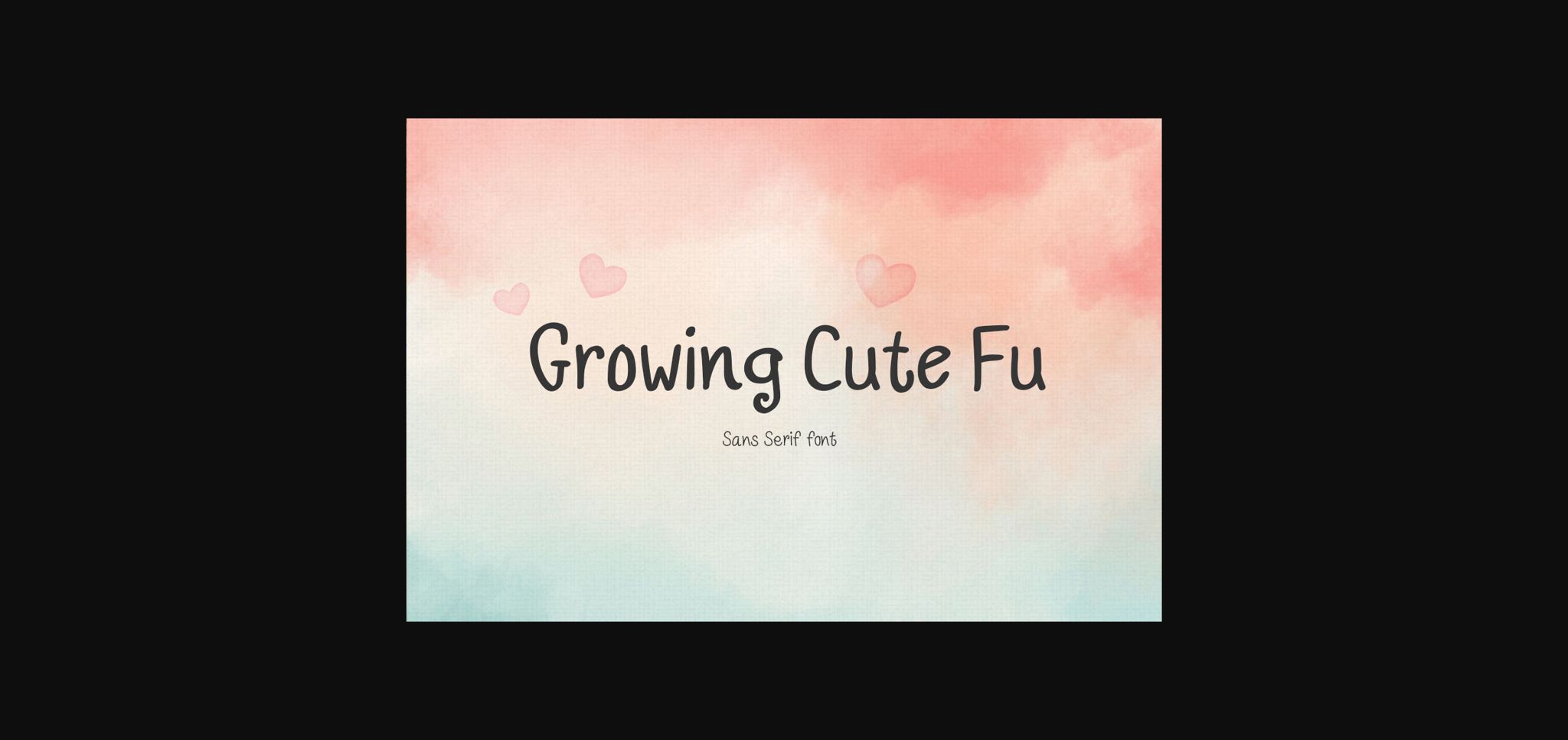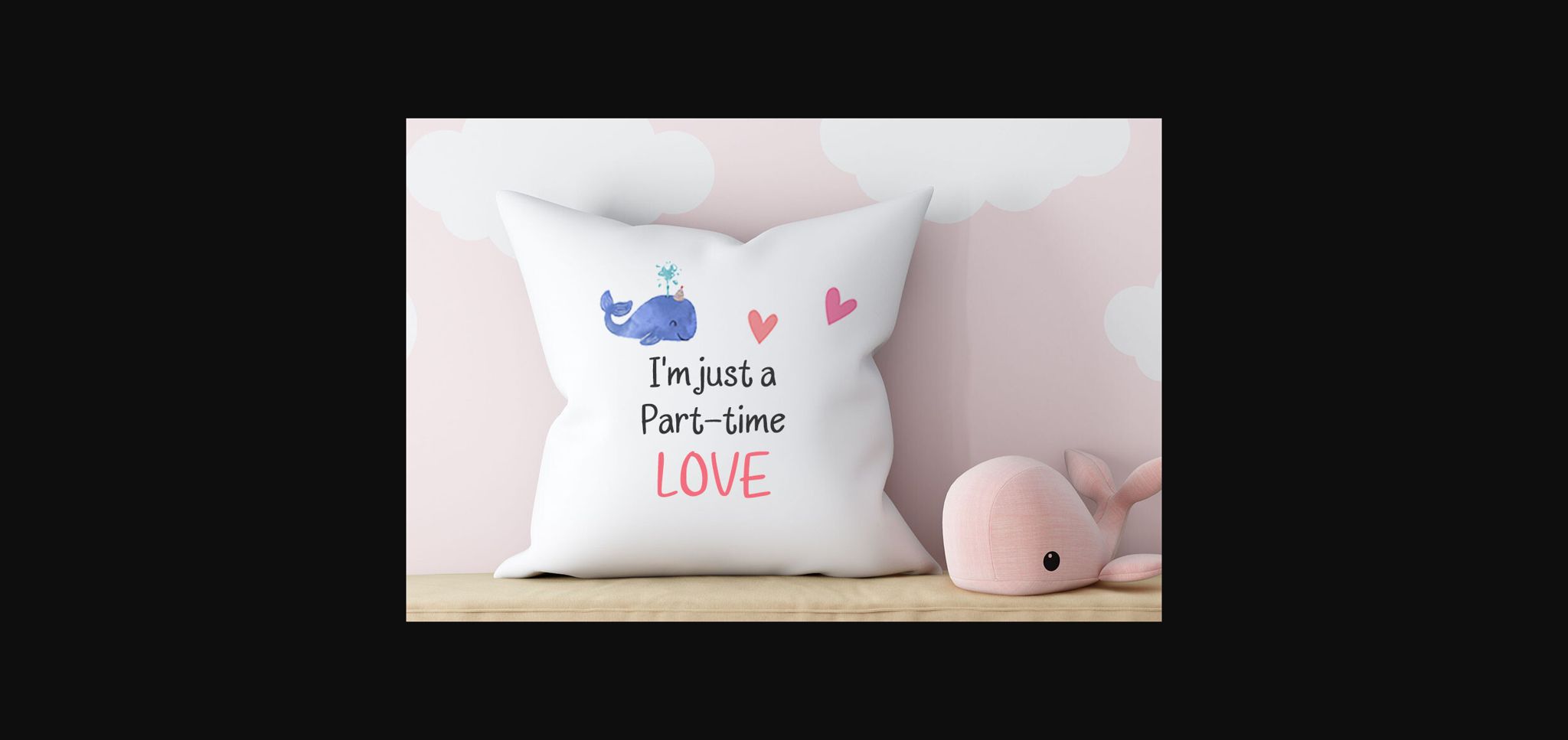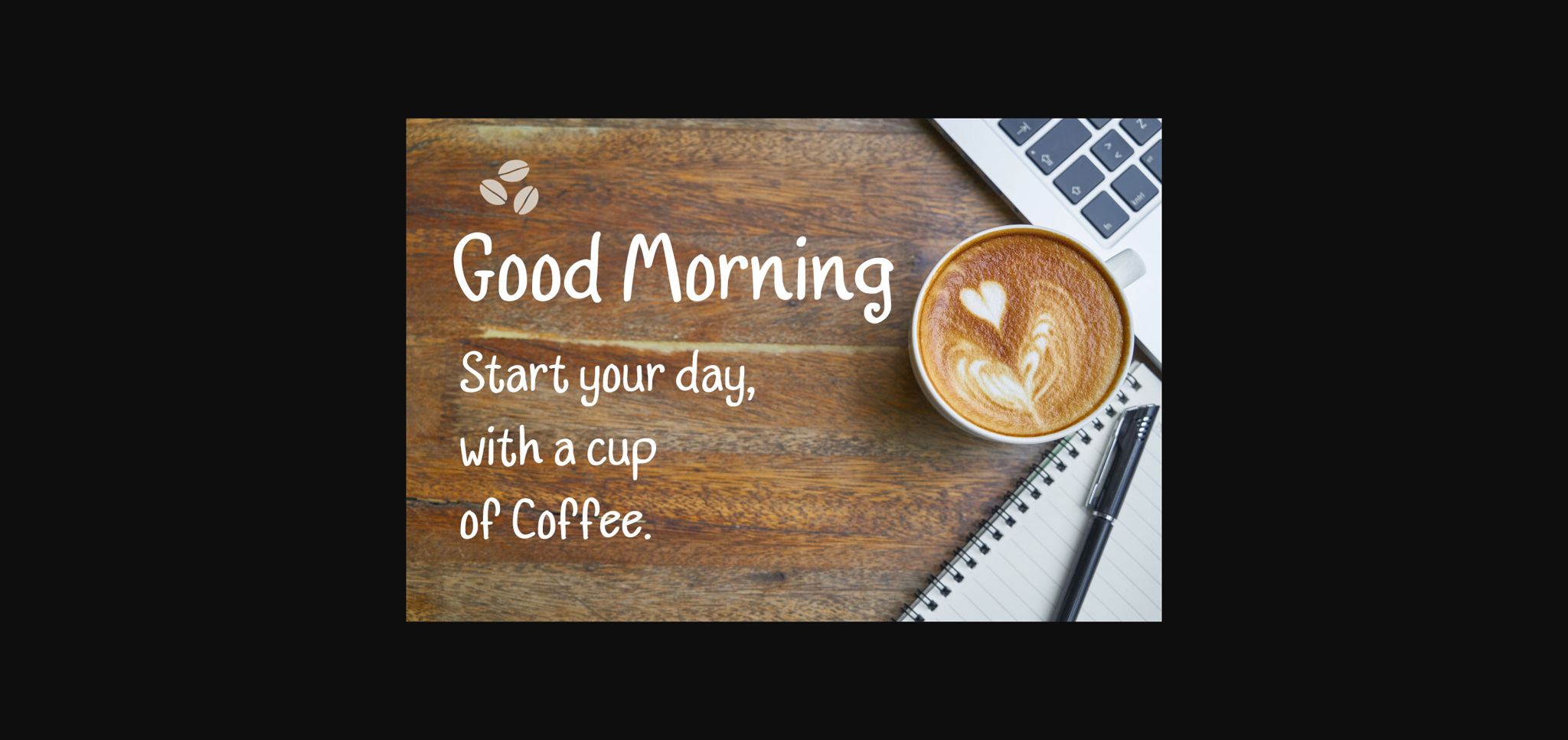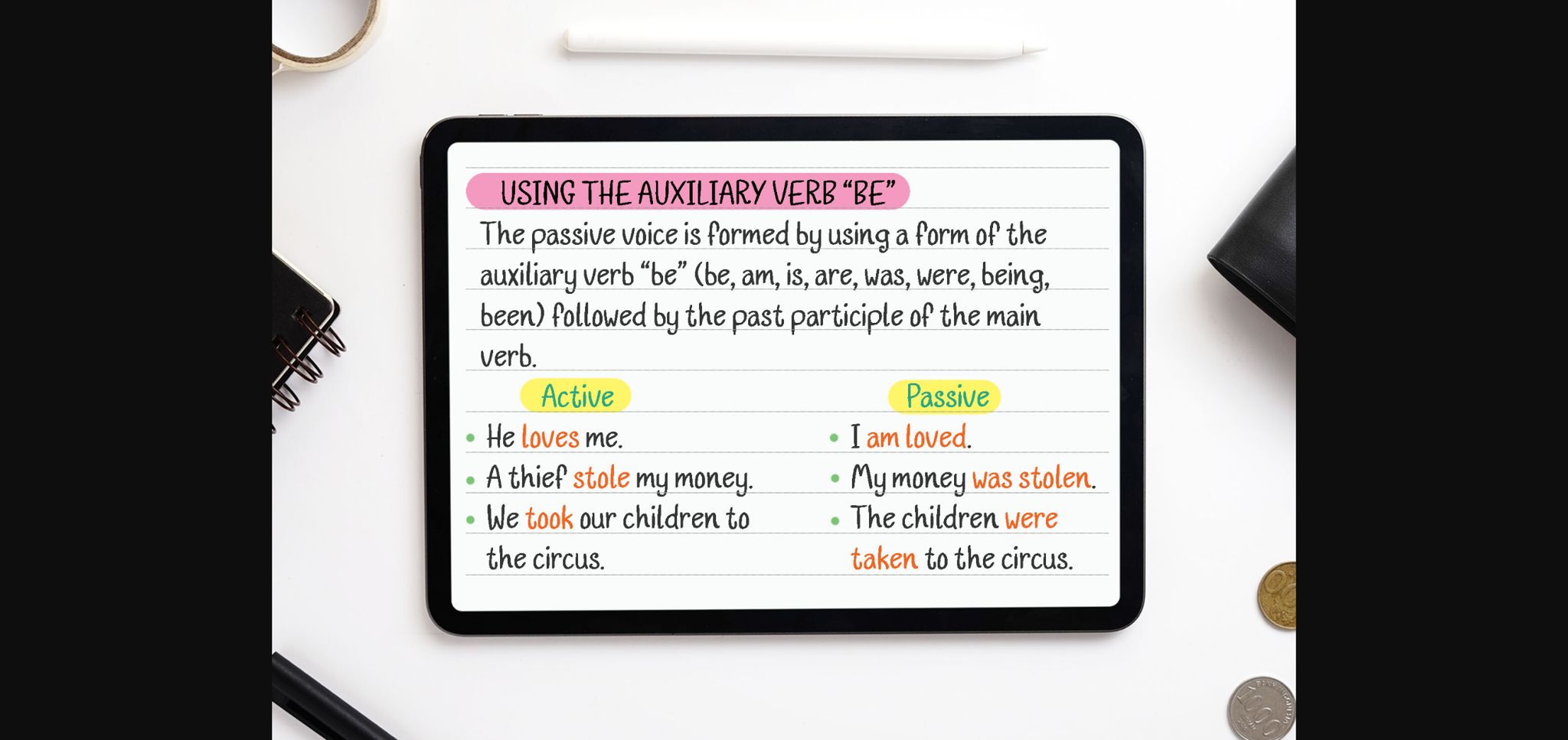
About Growing Cute Fu Font
Growing Cute Fu is a cute, playful and friendly sans serif font style. It would be awesome to your fun projects or diary planner, on wedding invitations, thank you cards, headlines, children themed designs, quotes, greeting cards, logos, posters, blogs, bag, T Shirt, clothing and other designs.